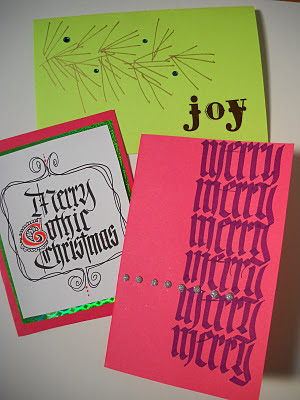
Its this Saturday! I apologize to all my friends out of the area=-this will be fun! -Its from 10-1 at the Art Supply Warehouse in Westminster. I will be teaching Gothic and a fun casual scripty style that anyone can do-here are a few samples-we'll add stickles and glitter and bling -oh my! So... all supplies included and its $45. You can sign up on line ( go to the Catalyst tab) or even call to sign up!